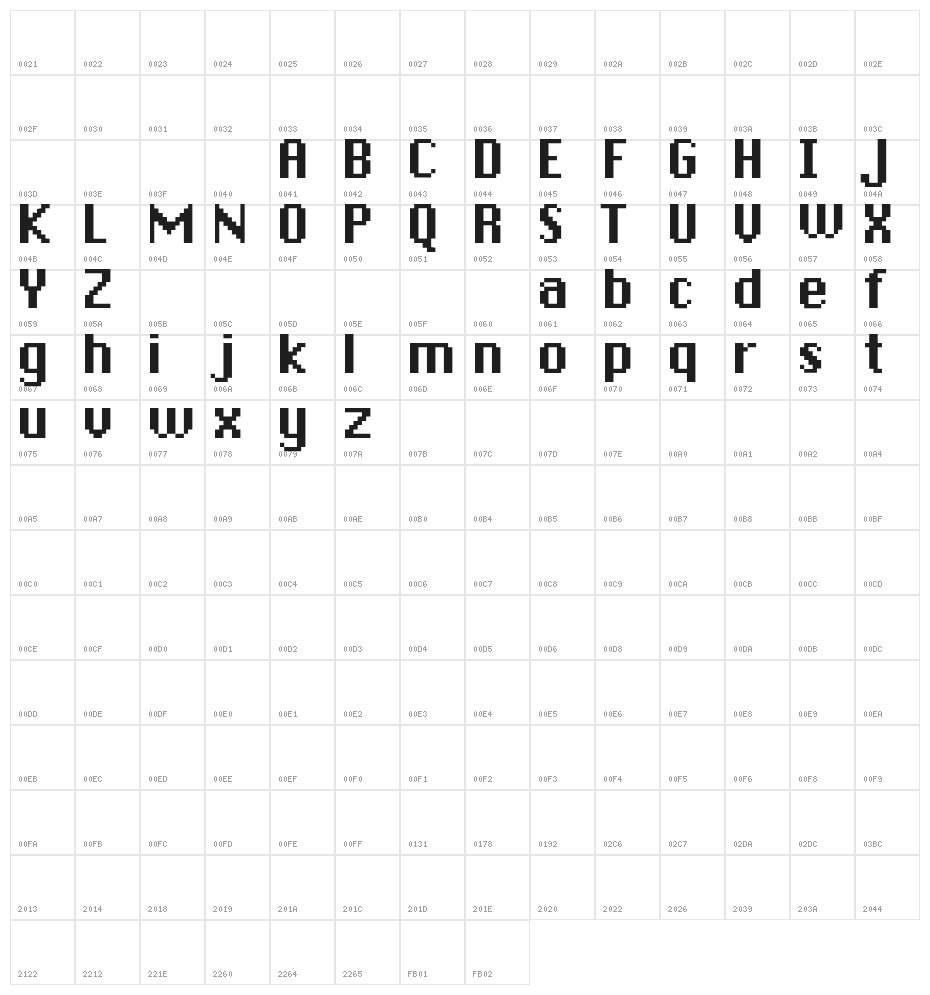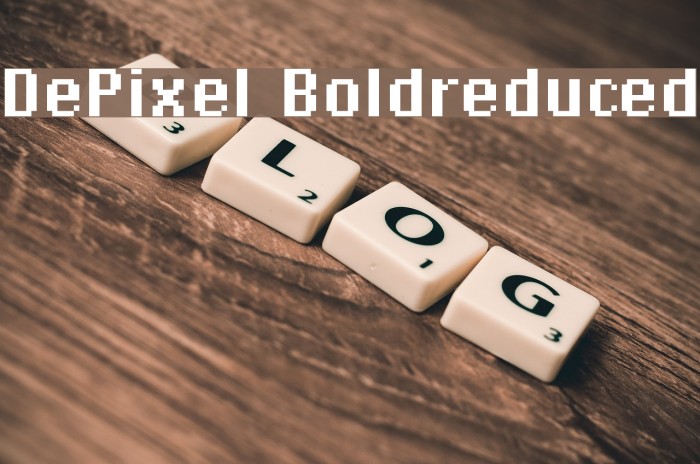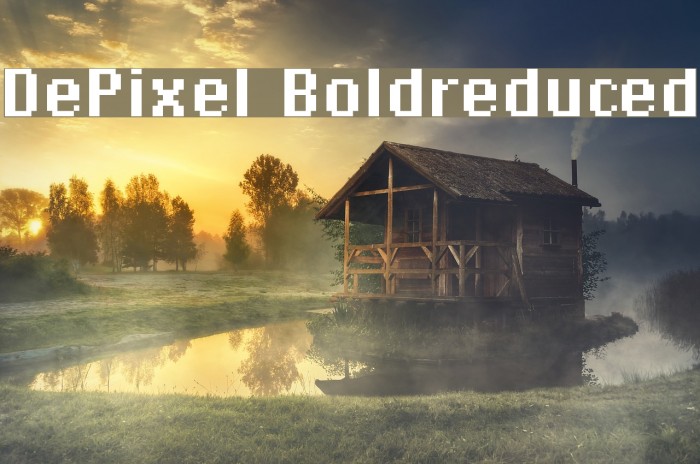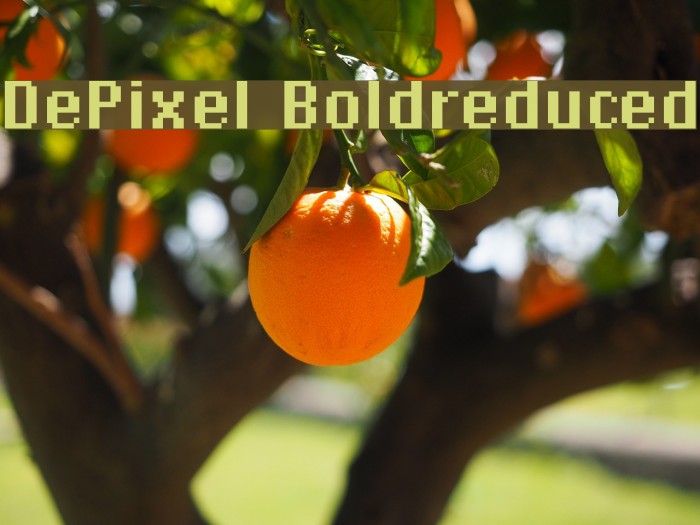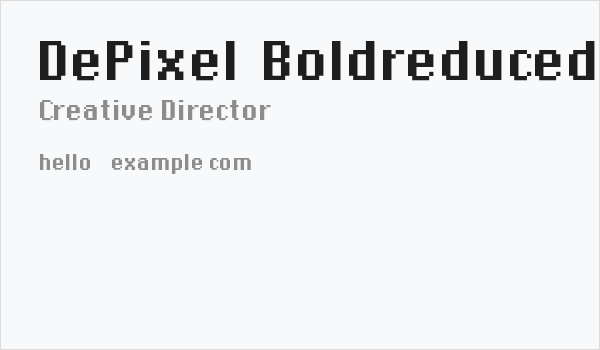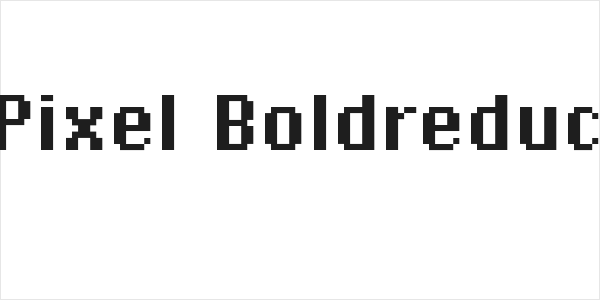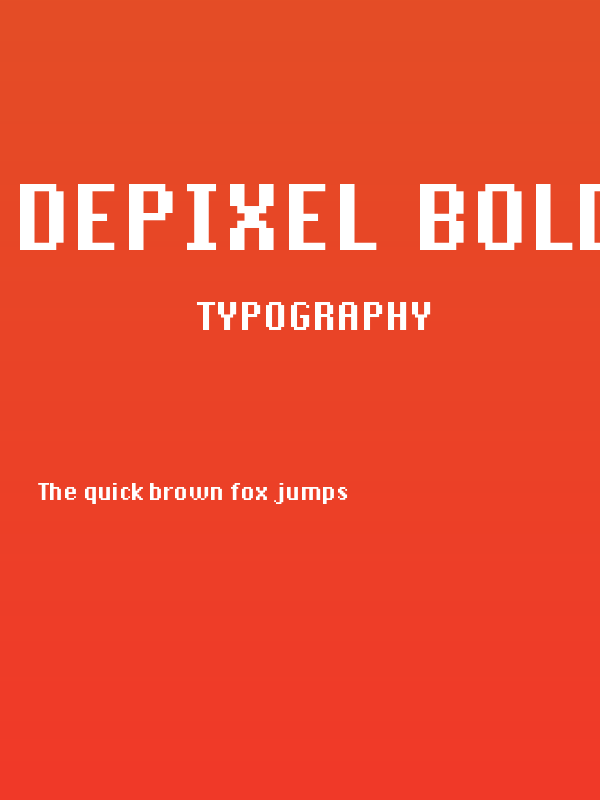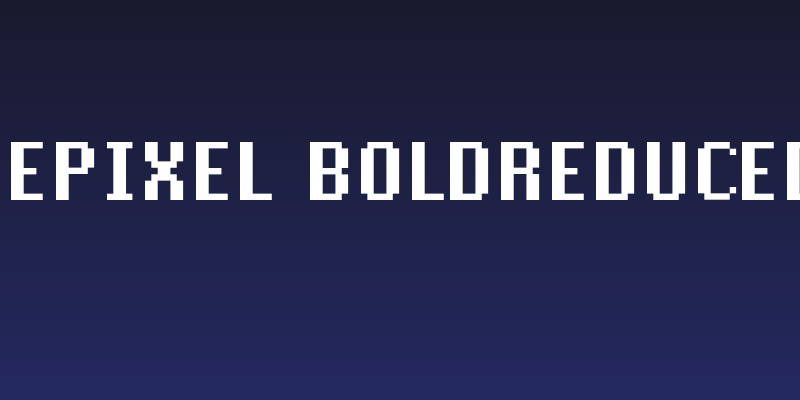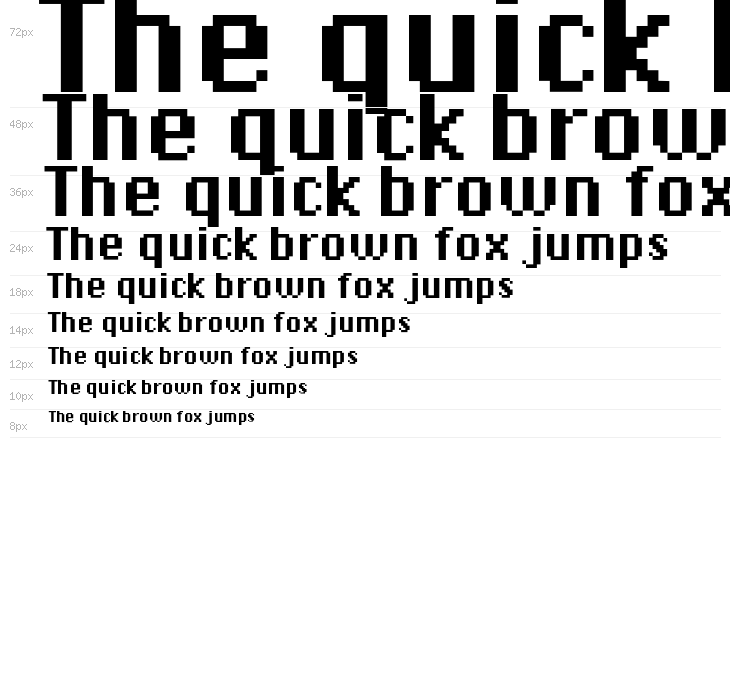
DePixel-Boldreduced Font
DePixel-Boldreduced Description
This font features a bold, pixelated design reminiscent of early digital displays and retro video games. Each character is constructed with a blocky, grid-like appearance, emphasizing a strong geometric form. The uppercase and lowercase letters maintain a consistent height, contributing to a uniform and cohesive look. The numbers and special characters follow the same pixelated style, ensuring visual harmony across all elements. This font's nostalgic aesthetic makes it ideal for projects that aim to evoke a sense of vintage digital technology or gaming culture.
| Use Case | Logos, Headlines, Digital Art |
| Proposed Projects | Ideal for retro video game designs, digital art projects, or any creative work seeking a nostalgic, digital theme. |